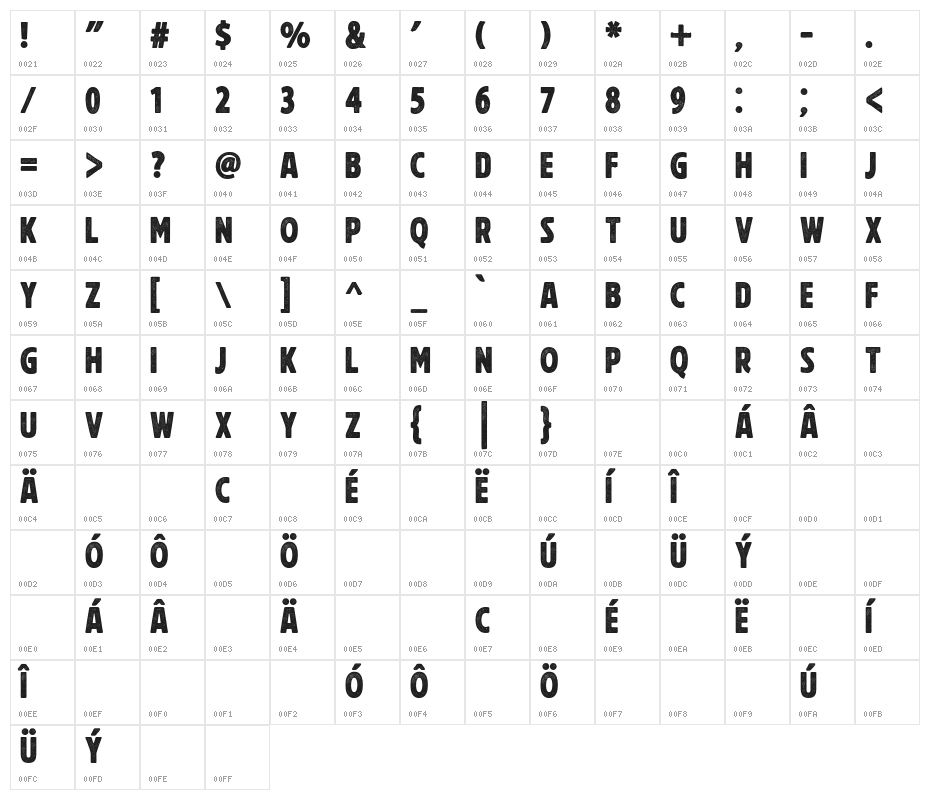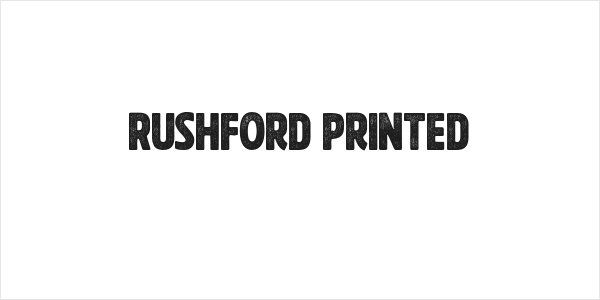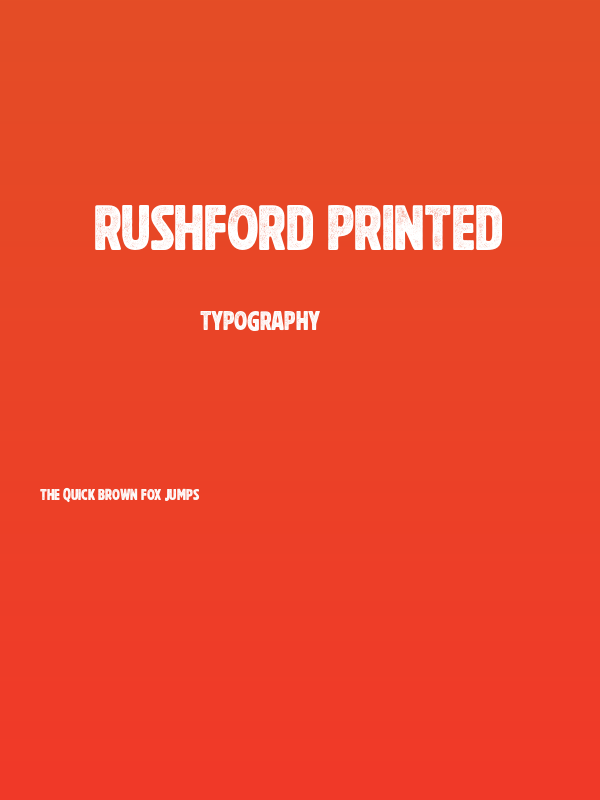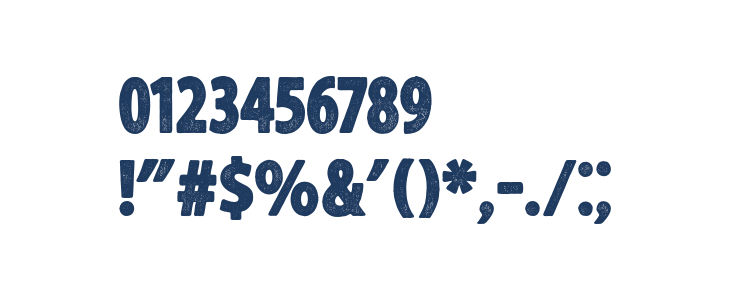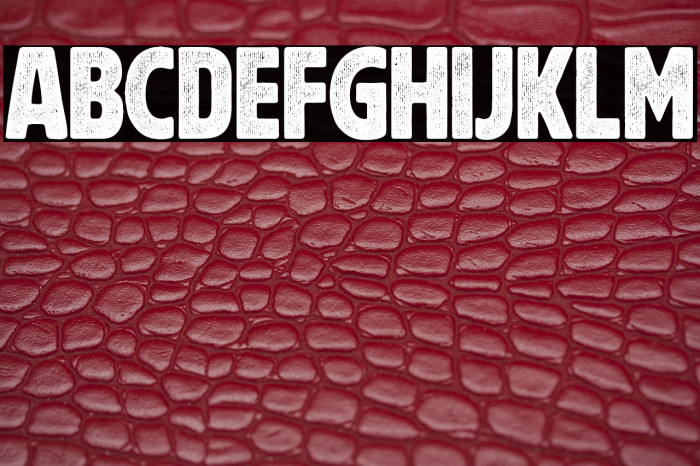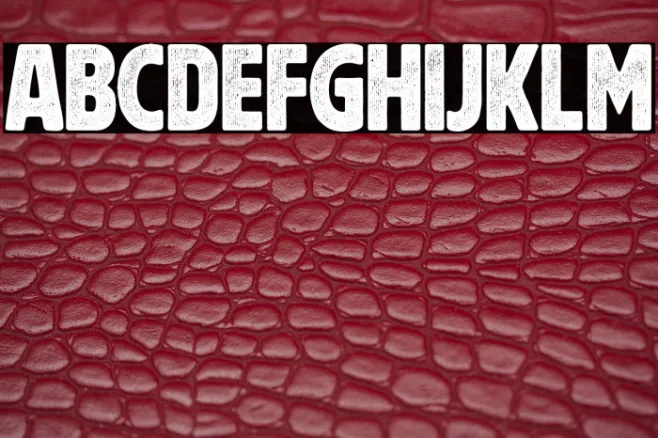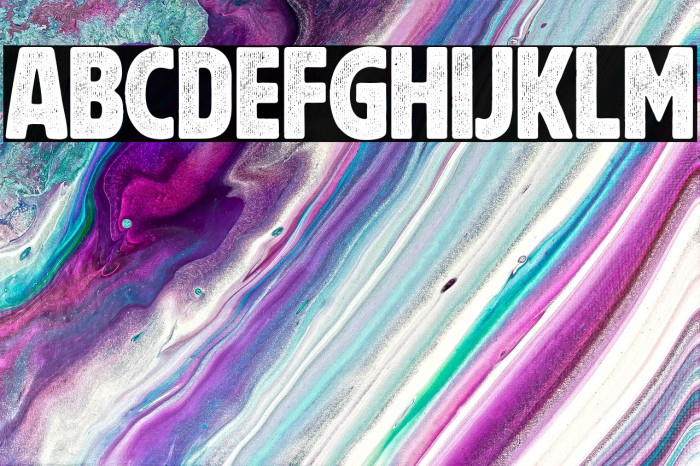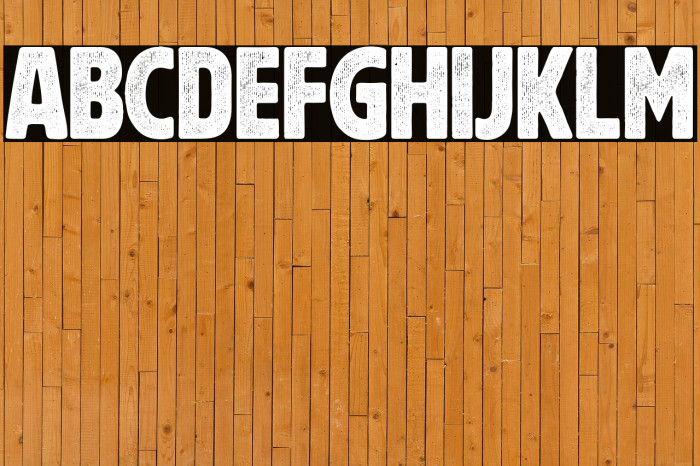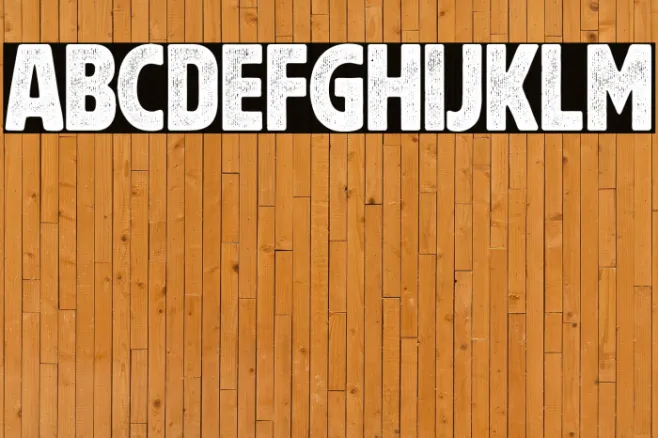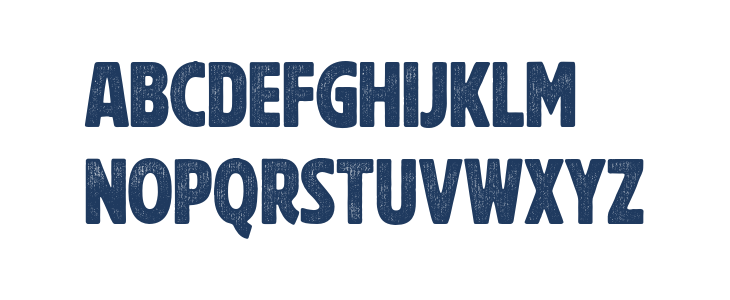
Rushford Printed Font
Rushford Printed Description
This font features a bold and robust style with a distinct textured appearance, reminiscent of vintage print techniques. The characters are uniformly bold, with a slightly distressed look that adds character and depth. The uppercase letters are strong and commanding, while the lowercase letters maintain the same weight and presence. Numbers and special characters are consistent with the overall style, making them suitable for impactful designs. The texture gives it a handcrafted feel, perfect for projects that require a rustic or retro aesthetic.
| Proposed Projects | Ideal for posters, branding, packaging, and any design that requires a vintage or handcrafted look. |